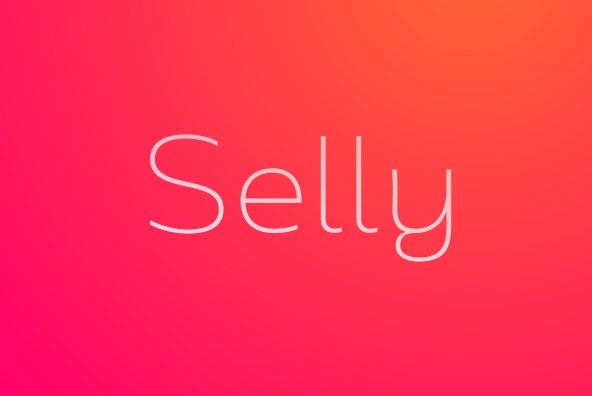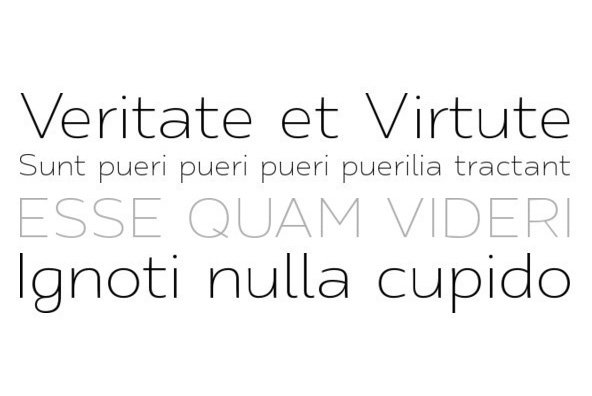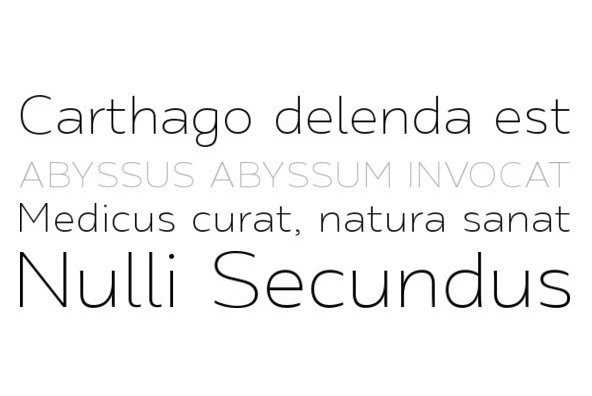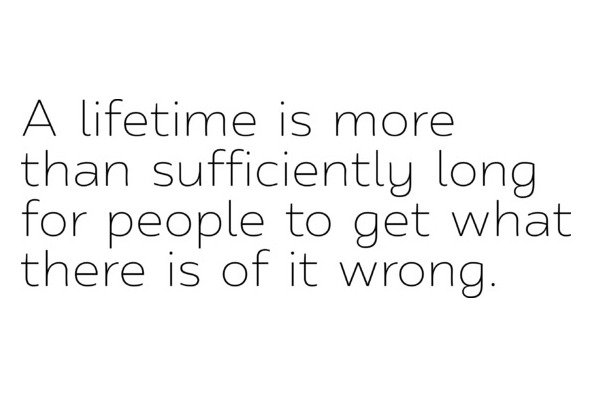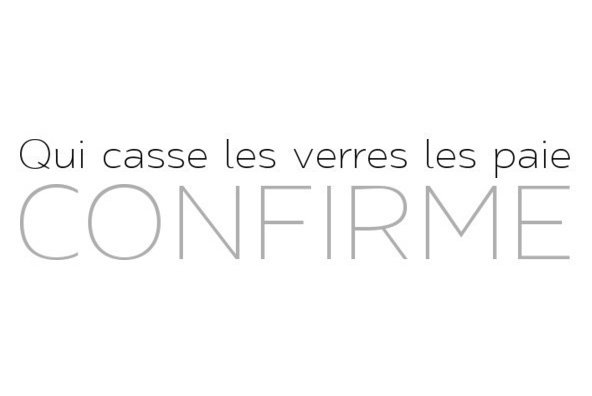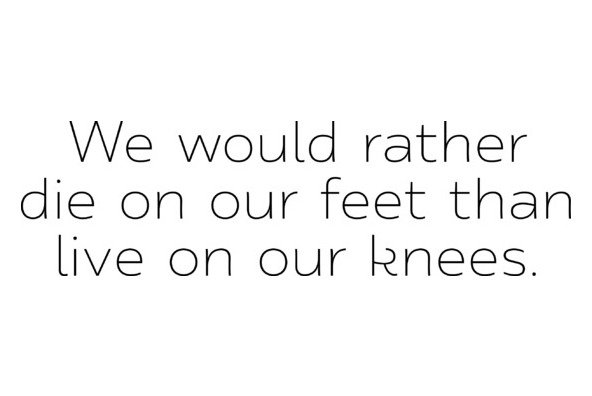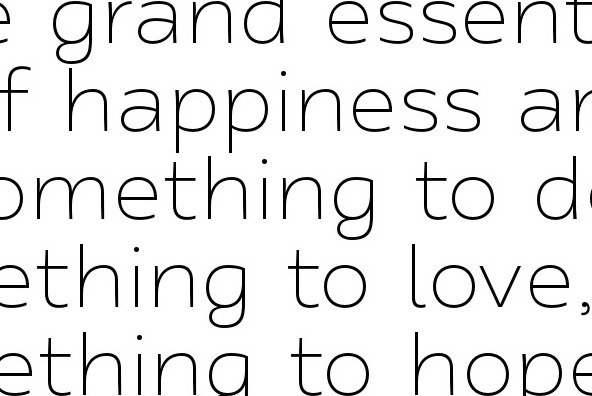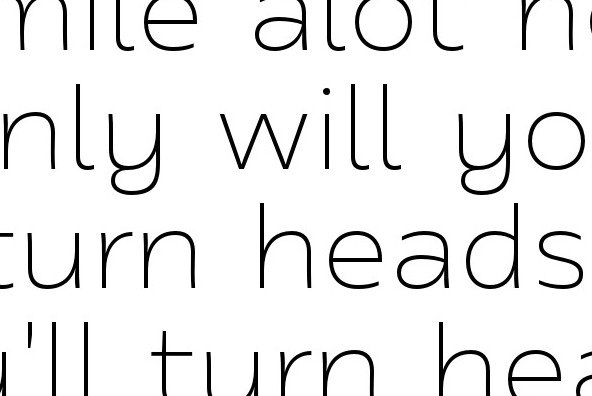
Foundry: Radomir Savov Tinkov
Selly is suited for any display use. It could easily work for web, signage, corporate as well as for editorial design. Includes one weight in Roman and comes in OpenType format.